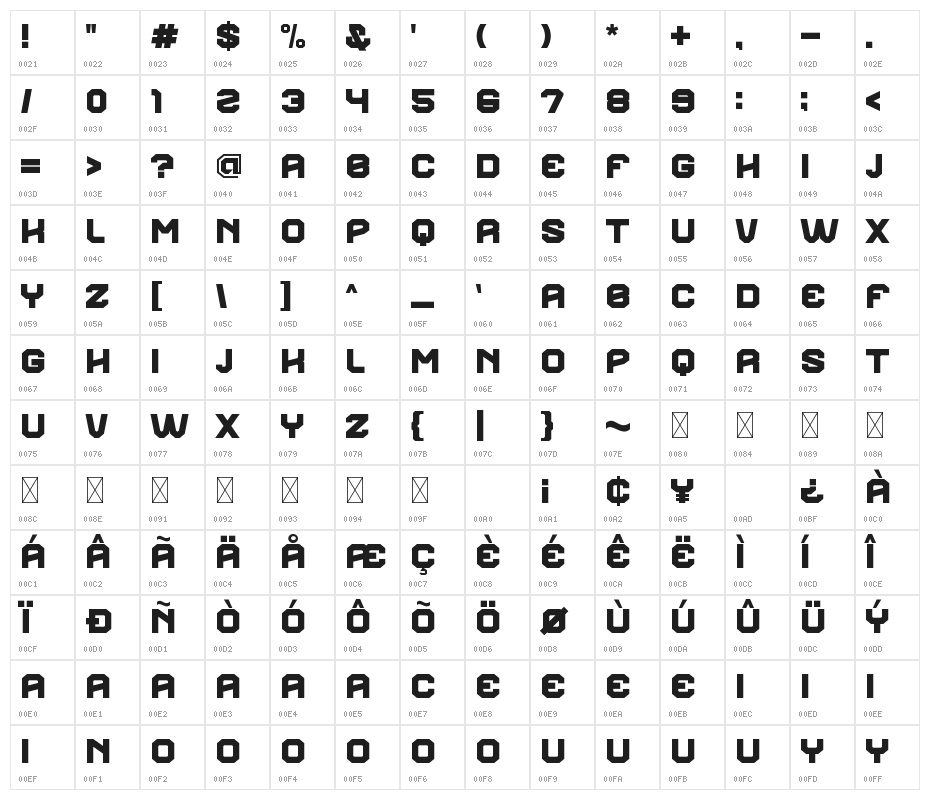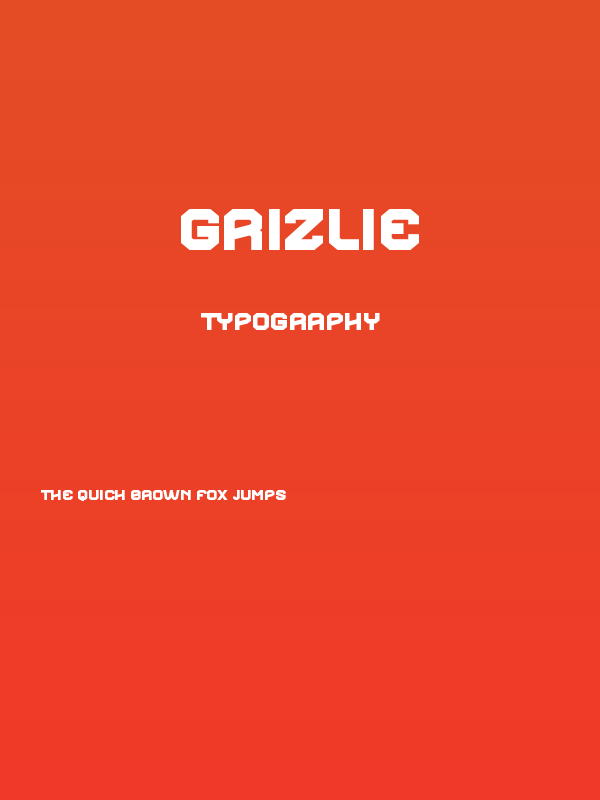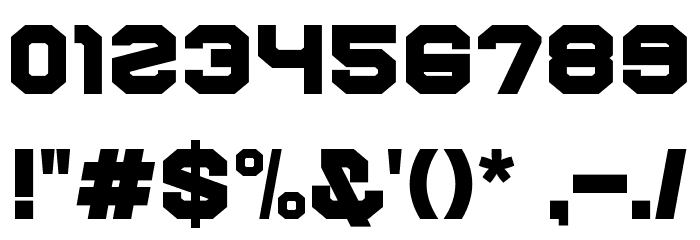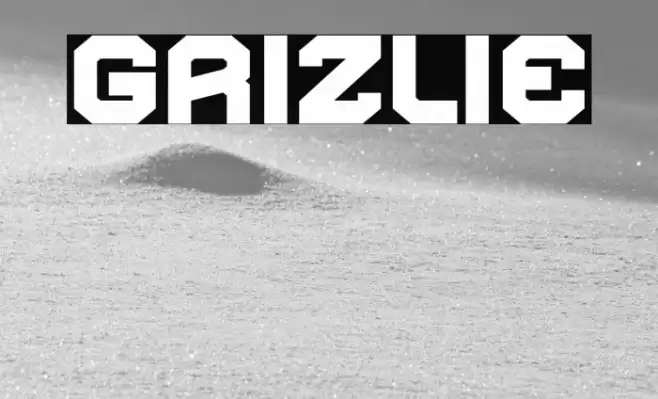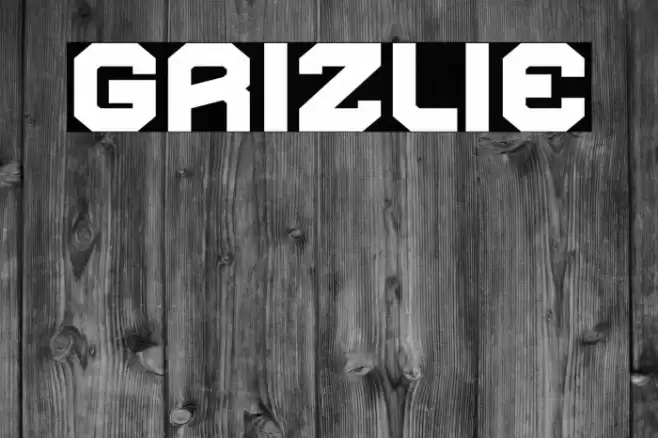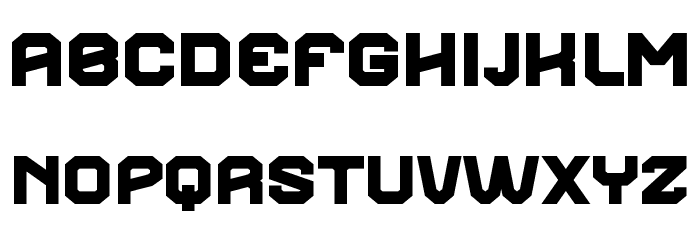
Grizlie Font
Grizlie Description
This font features a bold and geometric design with strong, angular lines and a blocky appearance. The characters are uniform in height and width, creating a cohesive and structured look. The uppercase letters are particularly striking, with sharp edges and a modern aesthetic. The numbers and special characters maintain this bold style, ensuring consistency across all glyphs. This font is ideal for projects that require a strong visual impact and a contemporary feel.
| Proposed Projects | Ideal for branding, posters, headlines, and any design that requires a strong, impactful presence. |